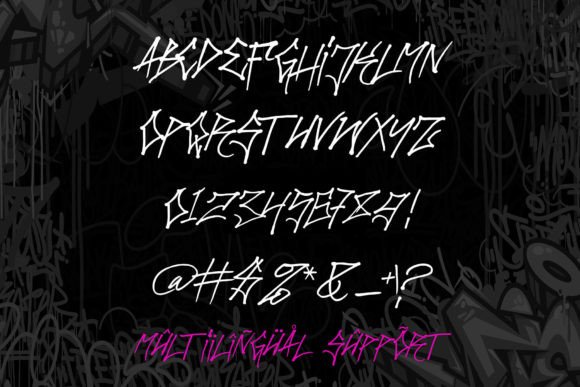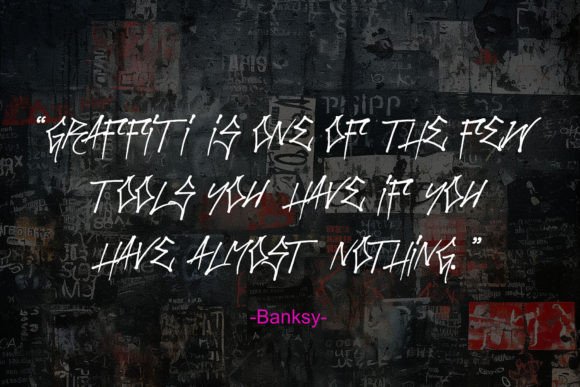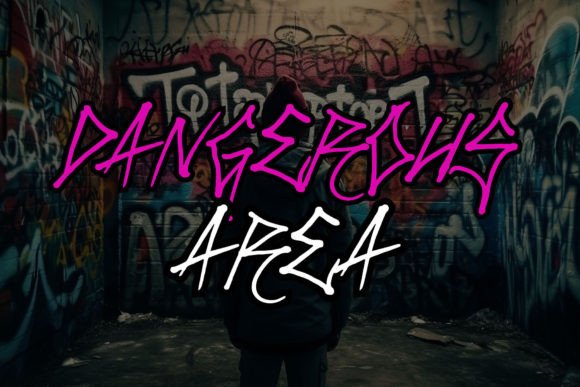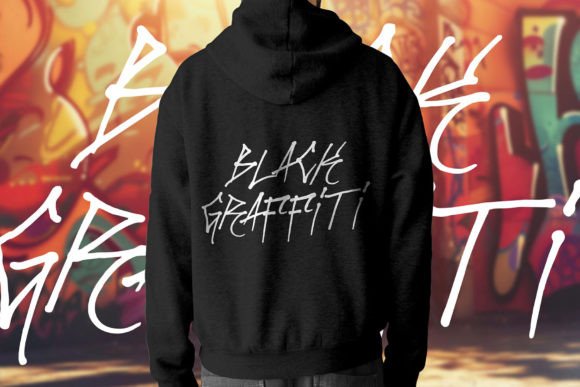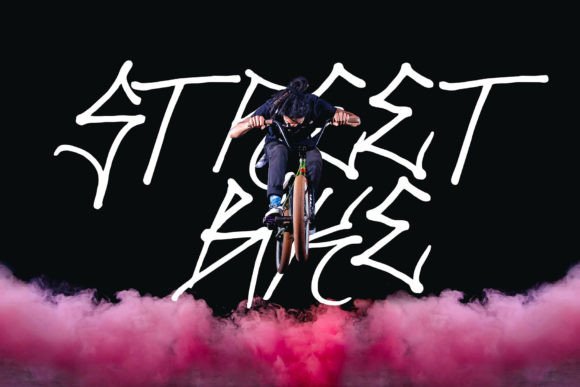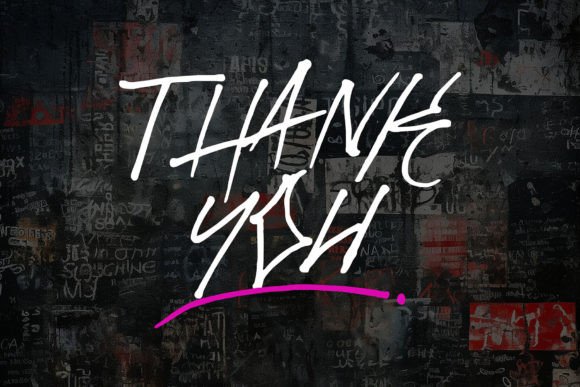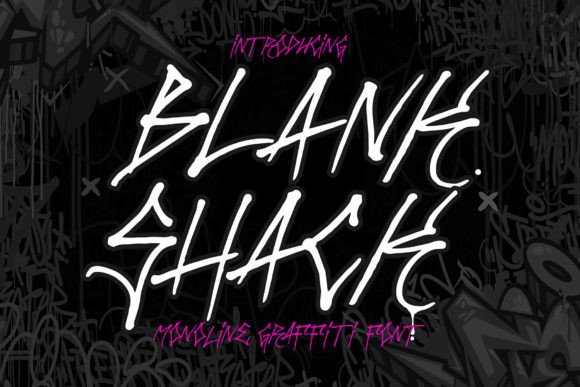
Unleash Urban Sophistication with Black Shack Font
In the realm of typography, few fonts manage to strike a balance between modern sophistication and raw, urban grit. Black Shack Font, also known as “Blank Shack,” is one such typographic marvel that seamlessly fuses a chic, urban vibe with the unmistakable audacity of graffiti, all presented in a sleek, minimalist style. This unique blend makes Black Shack an indispensable asset for designers and crafters looking to infuse their projects with a contemporary edge.
The Essence of Black Shack Font
At the heart of Black Shack’s appeal are its sleek, monoline strokes that lend an air of modernity and fluidity to any design. Unlike traditional graffiti fonts that can appear chaotic and overly complex, Black Shack embodies the essence of graffiti through clean, uninterrupted lines. This minimalist approach to urban typography not only pays homage to the graffiti culture but also elevates it, making it suitable for a wide range of applications, from graphic street art to high-end branding.
Aesthetic and Versatility
The aesthetic of Black Shack is undeniably captivating. Its sleek lines and modern feel can instantly transform a design, giving it an urban makeover that is both sophisticated and bold. This versatility makes Black Shack an ideal choice for various creative projects. Whether you’re working on a poster that needs to stand out in a crowded space, crafting a brand identity that speaks of modernity and daring, or illustrating a narrative set in the urban landscape, Black Shack brings a level of sophistication and uniqueness that is hard to achieve with more traditional fonts.
Ideal for Graphic Street Art and Branding
For artists and designers who specialize in graphic street art, Black Shack offers a way to express the raw energy and emotion of the streets through a refined and elegant lens. Its ability to convey a powerful urban narrative in a visually appealing way makes it a go-to font for projects that demand attention and respect. Similarly, for brands looking to carve out a modern and daring identity, Black Shack provides a typographic solution that is both memorable and impactful.
- Modern Aesthetic: Black Shack’s sleek, monoline design offers a fresh alternative to traditional graffiti fonts, making it perfect for modern designs.
- Urban Feel: It captures the essence of urban graffiti, adding an authentic touch to any project.
- Sophistication: Despite its urban roots, Black Shack exudes a level of sophistication that is suitable for high-end branding and artistic projects.
- Versatility: It can be used across a variety of mediums, from posters and flyers to digital platforms and merchandise.
How to Use Black Shack Effectively
To truly leverage the potential of Black Shack, consider the following tips:
- Pair with Simplicity: Let Black Shack be the focal point by pairing it with simpler fonts or backgrounds that do not compete for attention.
- Experiment with Colors: While the font itself is sleek and black, experimenting with bold colors can enhance its urban vibe.
- Play with Sizes: Utilize varying sizes to create a dynamic visual hierarchy that captures the viewer’s attention.
Black Shack Font stands out in the world of typography for its unique blend of urban grit and modern sophistication. Its sleek monoline strokes and minimalist style make it an exceptional choice for designers and crafters aiming to add a contemporary touch to their work. Whether it’s for graphic street art, captivating posters, or standout branding, Black Shack infuses designs with a unique urban vibe that demands attention. By incorporating Black Shack into your typographic arsenal, you’re equipped to create designs that are not only visually striking but also rich in narrative and aesthetic depth.